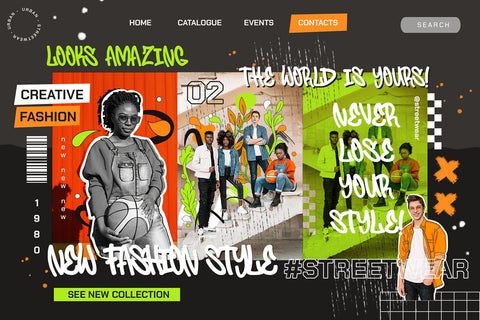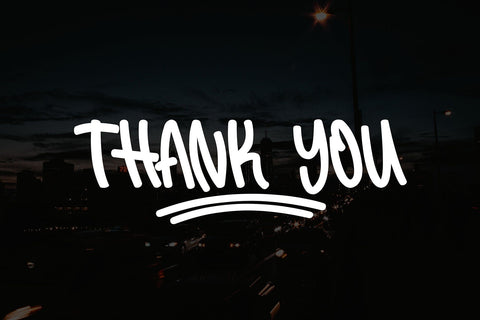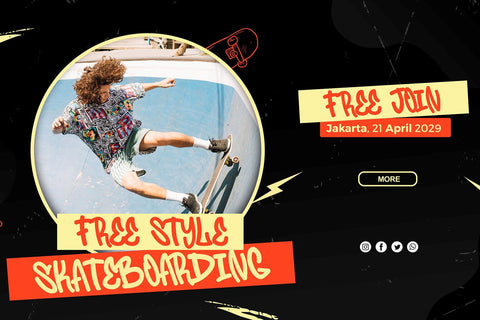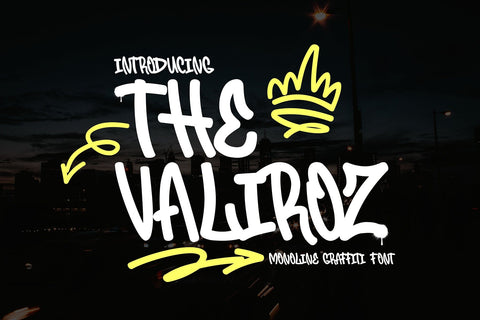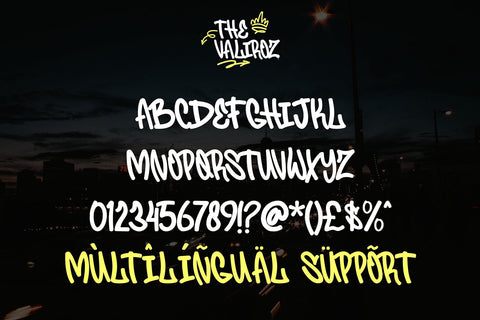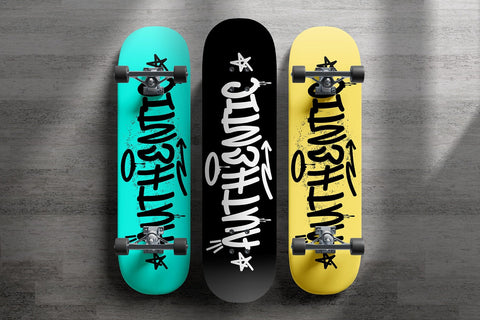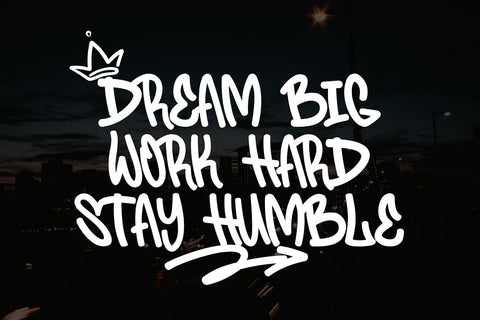
The Valiroz - Monoline Graffiti Font
"The Valiroz" is described as a monoline graffiti font that incorporates swash characters. Fonts in the monoline style maintain consistent stroke widths throughout the letterforms, offering a sleek and uniform appearance. The addition of swash characters introduces decorative elements or flourishes that embellish the font, enhancing its stylistic versatility.
- Graffiti Characters looks
- Edgy ,
- Edgy,